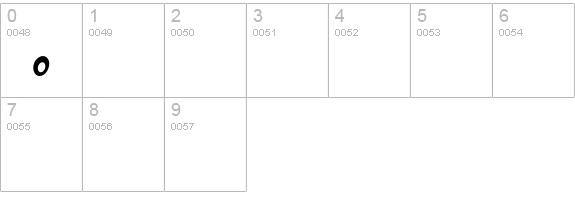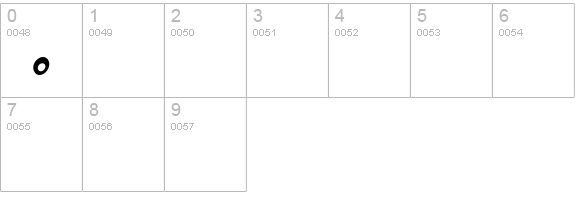
BulbPlain Font Details
BulbPlain font exudes a charming and elegant appeal, perfect for adding a touch of sophistication to any design project. Its sleek and streamlined appearance makes it versatile for a wide range of applications, from branding to editorial design. The clean lines and rounded edges of this typeface give it a modern yet timeless look that is sure to stand out. Best of all, BulbPlain font is completely free to download at FontsMarket.com. This means you can easily access this stylish font without any cost, allowing you to elevate your designs without breaking the bank. Whether you're a seasoned designer or just starting out, BulbPlain font is a fantastic addition to your toolkit. Download it today and give your projects a sleek and professional touch with this versatile and elegant typeface.